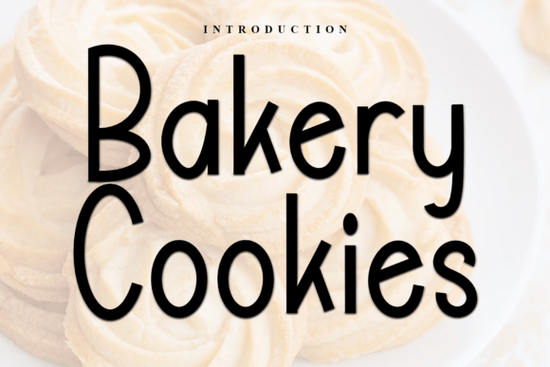
Bakery Cookies Font is a unique typeface that brings a warm, inviting feel to any design project. Whether you're working on packaging, social media graphics, or print materials, this font adds a touch of personality and charm. Its soft, handcrafted look makes it stand out, while its versatility ensures it fits into a wide range of creative applications. If you're looking for a font that combines style with functionality, Bakery Cookies could be the perfect choice for your next project.
Designed with attention to detail, Bakery Cookies Font features a distinct set of characters that make it easy to read while maintaining an artistic flair. The font’s strokes are gentle yet expressive, giving it a friendly and approachable vibe. This makes it ideal for use in branding, signage, and other visual elements where a personal touch is important. It also works well in combination with other fonts, allowing for more dynamic and engaging layouts.
What Makes Bakery Cookies Font Unique?
Bakery Cookies Font stands out due to its natural, almost handwritten appearance. Unlike rigid, geometric fonts, this one feels more organic and authentic. It’s especially useful for projects that aim to convey a sense of warmth or nostalgia. For example, it works well for bakery brands, food-related designs, or any project that wants to evoke a homey, artisanal feel.
How to Use Bakery Cookies Font in Your Projects
There are many ways to incorporate Bakery Cookies Font into your work. For instance, it’s perfect for headings and titles that need to grab attention. You can also use it for body text if you want to maintain a cohesive and stylish look throughout your design. Just keep in mind that because of its decorative nature, it may not be the best choice for long paragraphs.
When using Bakery Cookies Font, consider pairing it with simpler, more neutral fonts to balance the overall composition. This helps prevent visual clutter and keeps your design clean and readable. For example, you might pair it with a sans-serif font like Gumoye Font or Writable Font, both of which offer a modern and clean contrast.
Whether you're a designer, a crafter, or a small business owner, Bakery Cookies Font is a valuable addition to your toolkit. Its unique style and practical features make it a versatile choice for a variety of creative projects. By using this font, you can add a special touch to your designs that sets them apart from the competition.
Before finalizing your decision, take some time to experiment with the font in different contexts. Try using it in a sample design or mock-up to see how it looks in practice. This will help you determine if it’s the right fit for your specific needs. With a little exploration, you’ll likely find that Bakery Cookies Font is a great asset for your creative work.
- Pair with simpler fonts to maintain readability and balance.
- Experiment with different sizes to find the best visual impact.